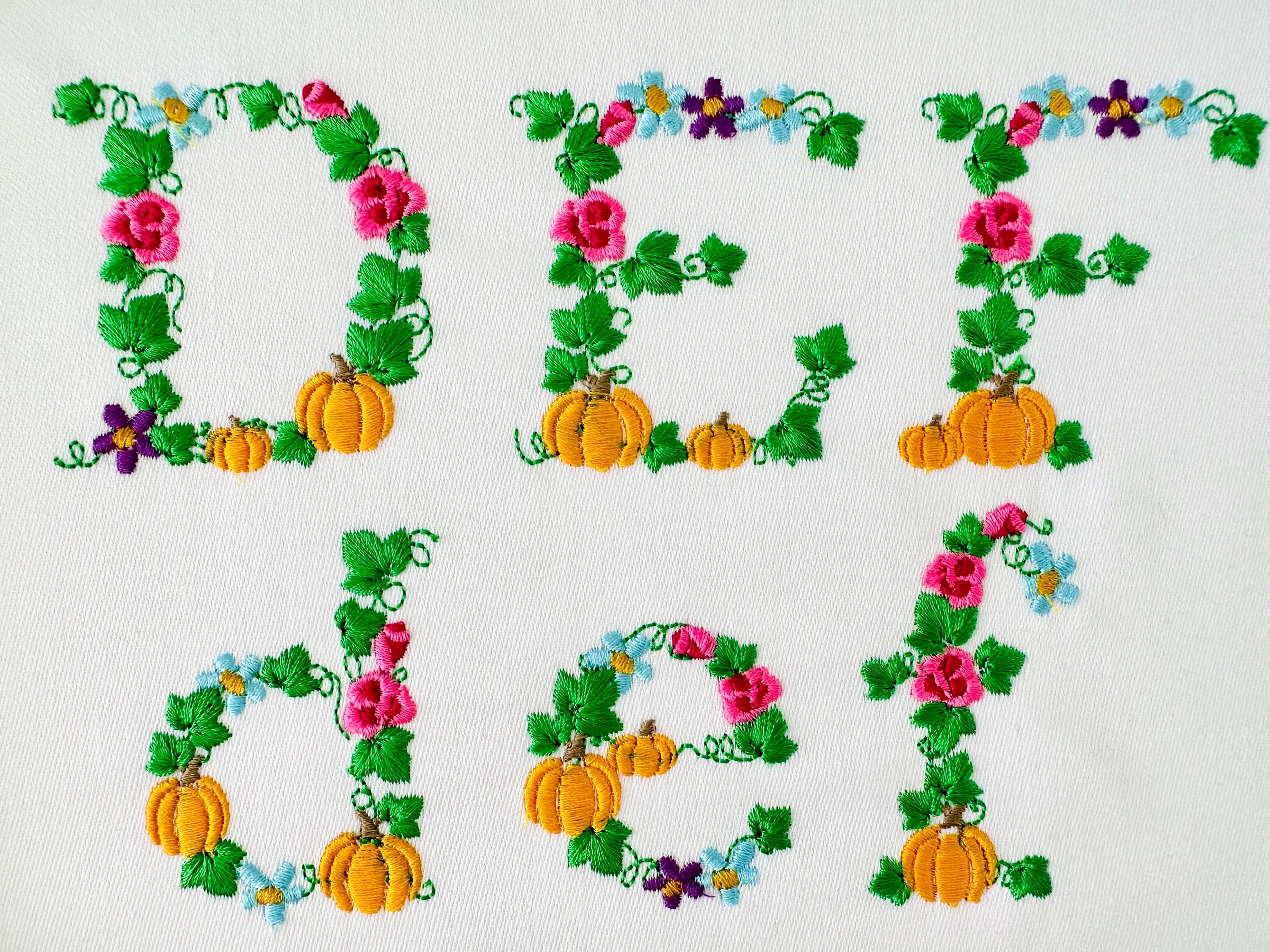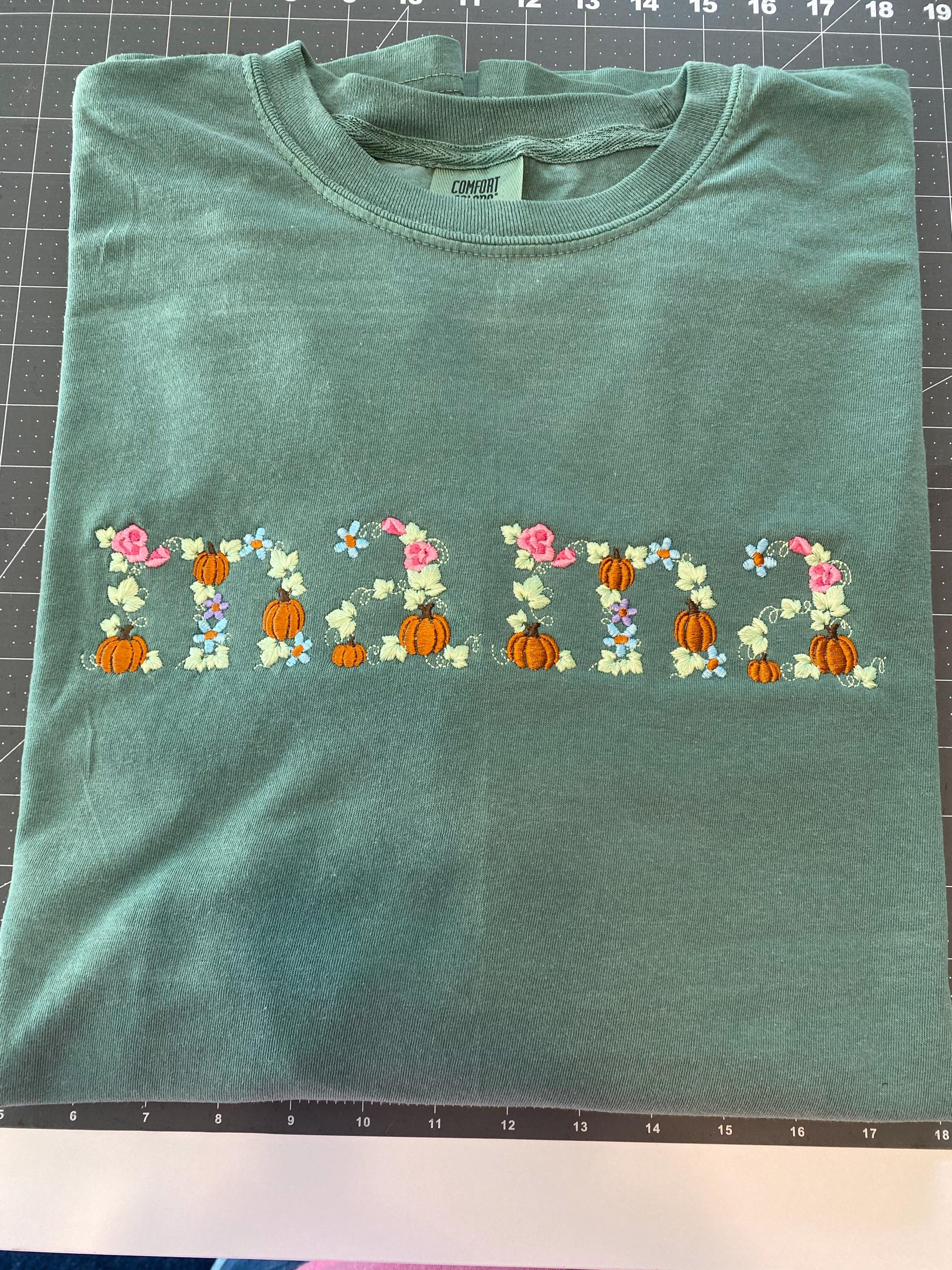
Pumpkin Floral Font Garden Thanksgiving alphabet uppercase lowercase letters monogram flowers font machine embroidery designs BX ivy leaves
Uppercase and lowercase letters Aa - Zz.